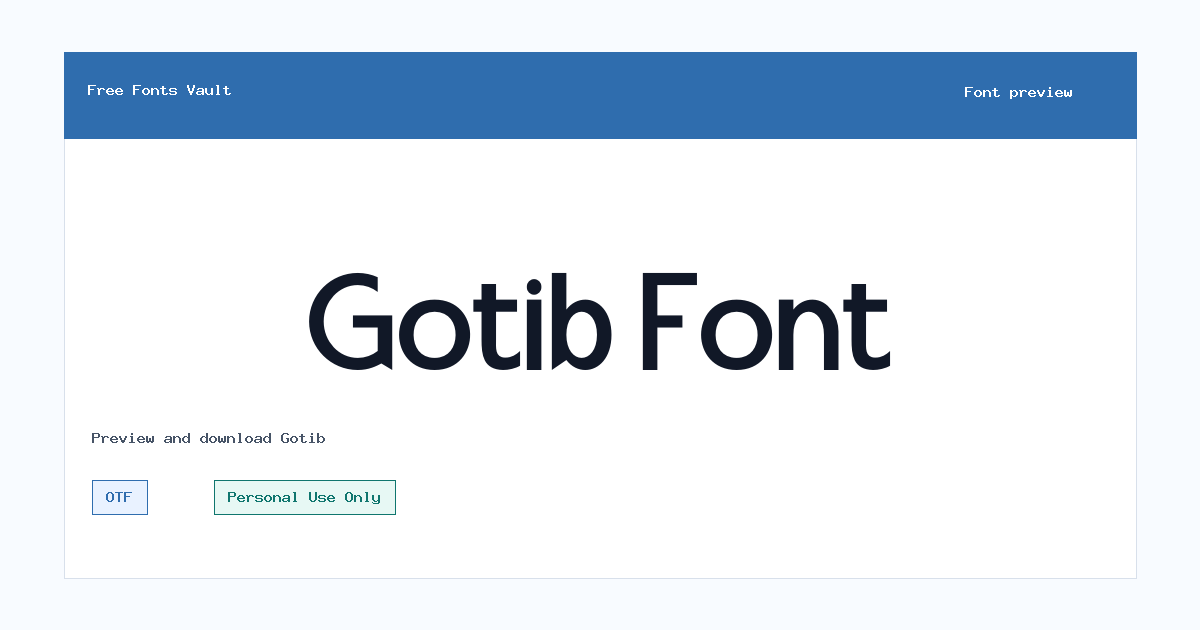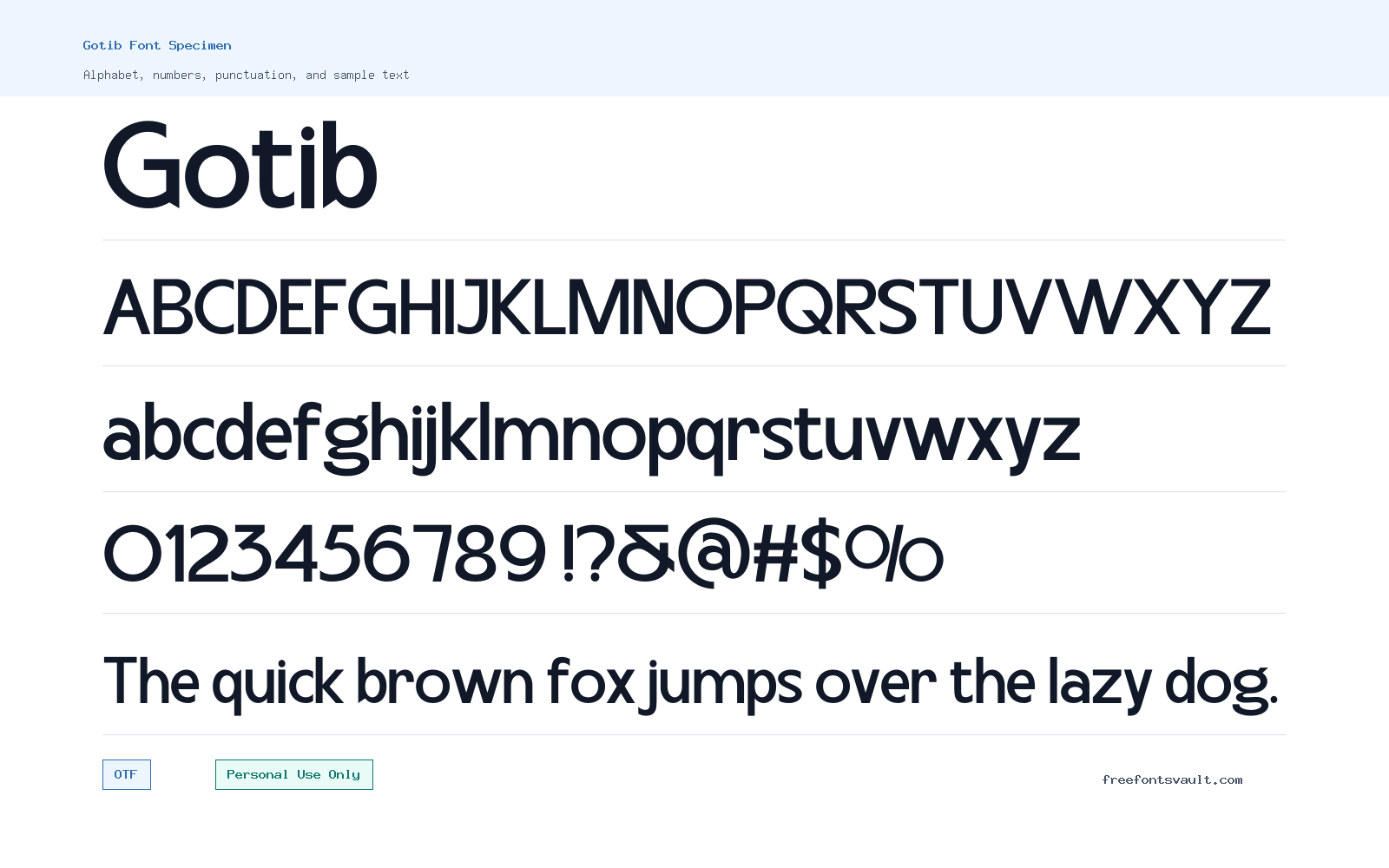
Gotib
- Designer Maikohatta
Gotib font.
Gotib is a sans serif font family with a regular OTF style, designed for personal-use projects where a clean, straightforward letter shape is useful. It is a good font to test when you need simple display text, title treatments, social graphics, or early branding mockups without a heavily decorative look.
About Gotib Font
Gotib keeps things direct: it is a sans serif typeface in a regular weight, so the first thing to check is how its letter spacing, curves, and proportions behave in your own words. Because the available style is regular at weight 400, it should be approached as a single-style font rather than a full multi-weight family. That makes it most useful for focused design jobs: a logo draft, a poster heading, a clean web hero title, a product label concept, a personal portfolio graphic, or a short line of display text. If you need bold, italic, condensed, or extended options, you may need to pair Gotib with another font family that provides those roles.
For logo work, try Gotib in short names first. Single-style sans serif fonts often work best when the wordmark is not too long, because every letter has to carry the rhythm without help from weight changes. Test uppercase, lowercase, and mixed-case versions, then adjust tracking to see whether the font feels tighter and more compact or more open and editorial. For posters and social graphics, use Gotib at larger sizes where its sans serif structure can stay clear. In web mockups, test it in hero headings, buttons, section labels, and navigation samples before using it for longer body copy. Since only one OTF file is listed, web use may require conversion or a proper webfont license from the rights holder.
- Regular 400-weight sans serif style suitable for clean titles, mockups, and display text.
- Single-style family, making it simple to preview but less flexible than a full type system.
- Best tested in short text settings such as names, headings, labels, and promotional graphics.
Start by previewing Gotib with the exact text you plan to design, especially if the text includes numbers, punctuation, or unusual letter combinations. For logos, test different tracking values and compare the result against a more neutral sans serif to see whether Gotib gives the tone you want. For posters, use it in large headlines with a simpler body font below it. For web mockups, keep Gotib to headings or interface accents unless you have tested readability at paragraph sizes. A practical pairing approach is to combine Gotib with a plain, highly readable sans serif for body text, or with a restrained serif if you want contrast without making the layout feel busy. Because only the regular style is listed, build hierarchy through size, spacing, color, and layout rather than relying on bold and italic variants.
What kind of font is Gotib?
Gotib is listed as a sans serif font. The available style is a regular 400-weight OTF file.
Is Gotib good for posters?
Gotib can be useful for personal poster headlines and short display text. Test it at large sizes and pair it with a readable body font for event details or longer descriptions.
Does Gotib include bold or italic styles?
Only a regular style is listed. If your design needs bold, italic, or multiple weights, pair Gotib with another family that has those styles.